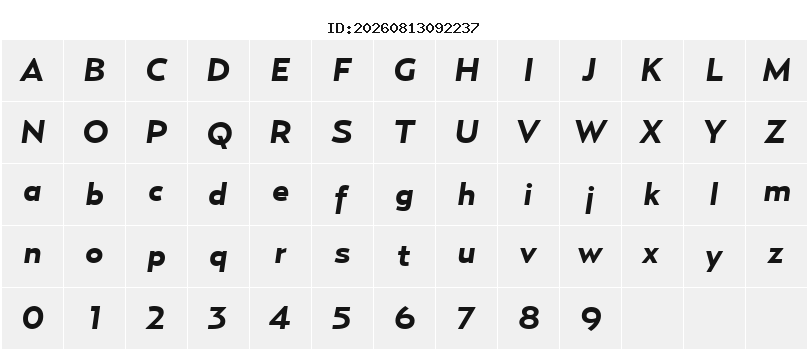
RelayWide-BoldItalic Preview
• Designer: Cyrus Highsmith
About RelayWide-BoldItalic.ttf
RelayWide-BoldItalic.ttf is a modern, elegant sans-serif font designed for ultimate readability and visual harmony. Perfect for branding, headlines, web design, and print materials.